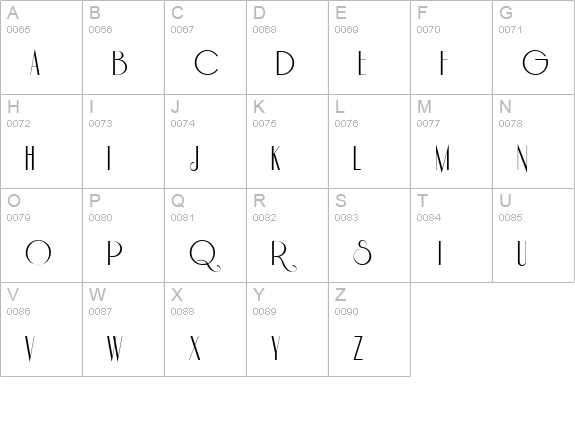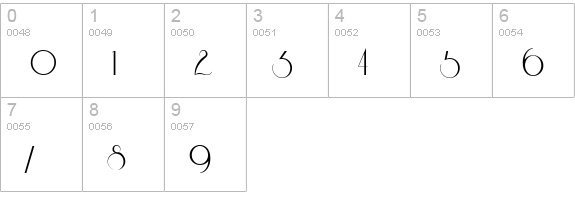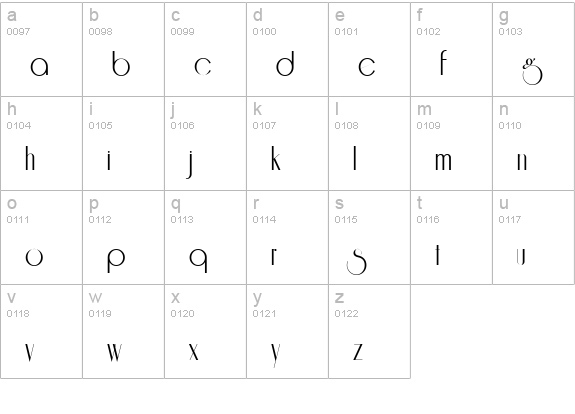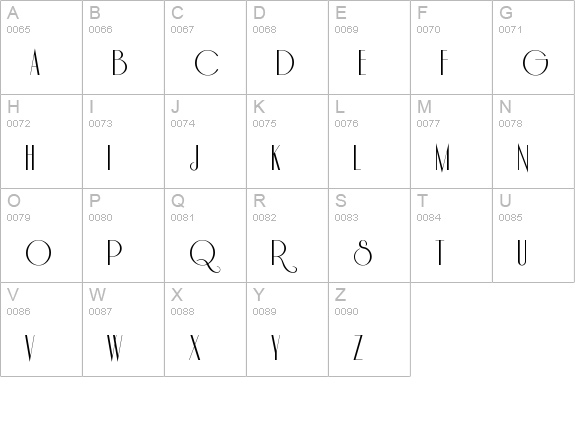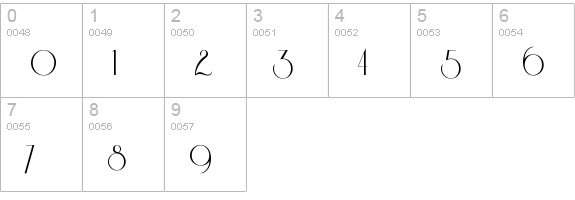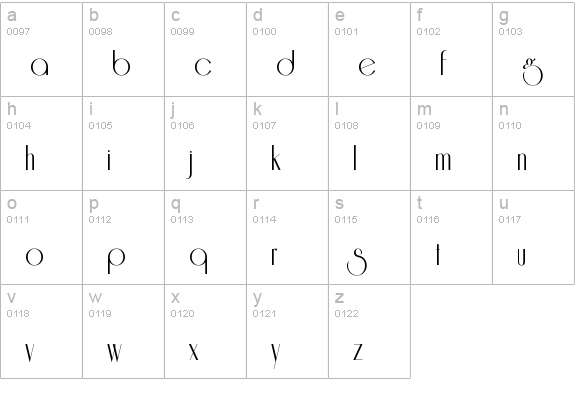
Riesling font is a stunning display typeface that exudes elegance and sophistication. Its graceful curves and delicate lines make it perfect for adding a touch of refinement to any design project. Riesling font is versatile and can be used for a wide range of applications, from branding to invitations to packaging. One of the best features of Riesling font is that it is completely free to download at FontsMarket.com. This means that you can start using this beautiful font in your projects right away, without having to worry about any additional costs. With its timeless appeal and classic charm, Riesling font is sure to elevate your designs to new heights. Download Riesling font today and see the difference it can make in your work.